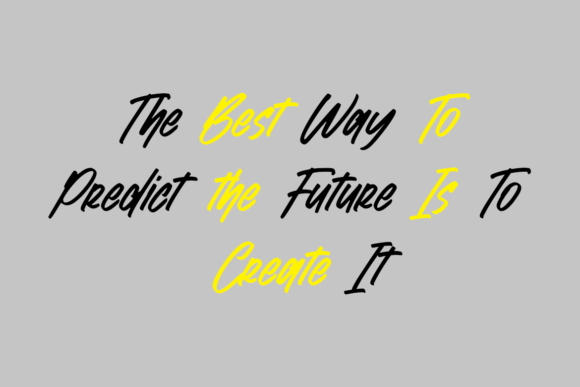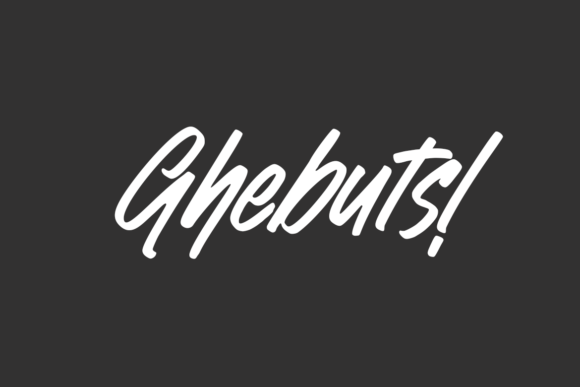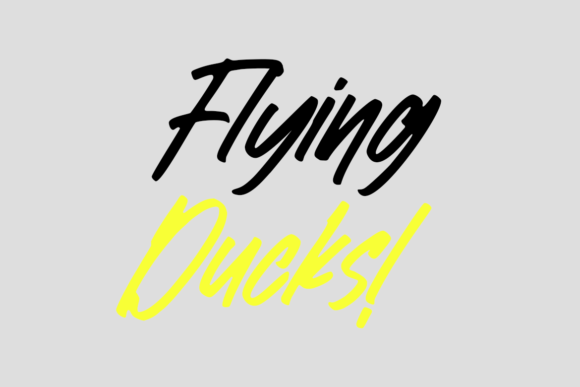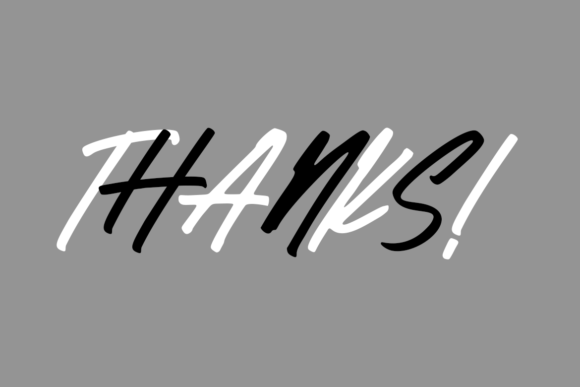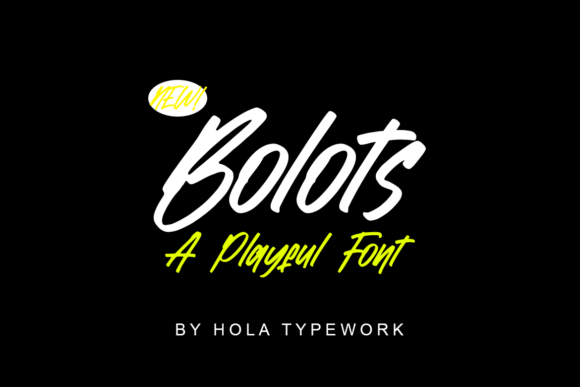
Introducing Bolots Font: The Playful and Brushed Handwritten Font for Creative Projects
Are you a designer or crafter looking for a unique and playful font to add a personal touch to your projects? Look no further than Bolots Font! This beautifully crafted handwritten font is perfect for a wide range of creative endeavors, from t-shirt designs and quotes to mugs, tote bags, cards, banners, social media, and any other crafty project you can imagine.
What Makes Bolots Font Special?
Bolots Font is a playful and brushed handwritten font that exudes a sense of whimsy and charm. Its unique, hand-crafted aesthetic makes it stand out from more traditional fonts, adding a touch of personality to any project. The font’s playful nature makes it ideal for designs that require a friendly, approachable feel, such as:
- T-shirt designs: Add a fun and quirky touch to your apparel designs with Bolots Font.
- Quotes and posters: Create eye-catching quotes and posters that showcase your message in a playful and stylish way.
- Mugs and ceramics: Add a personal touch to your mug and ceramic designs with this charming font.
- Tote bags and fabric: Bolots Font is perfect for designing tote bags, fabric, and other textile products.
- Cards and invitations: Create unique and personalized cards and invitations that showcase your style.
- Banners and signs: Use Bolots Font to create eye-catching banners and signs that grab attention.
- Social media graphics: Add a playful touch to your social media graphics, such as Instagram posts and Facebook covers.
Key Features of Bolots Font
Here are some key features that make Bolots Font a versatile and practical choice for designers and crafters:
- Handwritten aesthetic: Bolots Font has a genuine handwritten look that adds a personal touch to your designs.
- Playful and whimsical: The font’s playful nature makes it perfect for designs that require a friendly and approachable feel.
- Brushed texture: The font’s brushed texture gives it a unique, organic feel that sets it apart from other fonts.
- Easy to read: Despite its playful nature, Bolots Font is easy to read, making it perfect for designs that require a clear message.
Tips for Using Bolots Font
To get the most out of Bolots Font, here are some tips to keep in mind:
- Use it with contrasting colors: Bolots Font looks great when paired with contrasting colors that make it stand out.
- Experiment with different sizes: The font looks great in various sizes, from large headings to smaller text.
- Pair it with other fonts: Bolots Font pairs well with other fonts, such as sans-serif fonts, to create a unique and interesting design.
- Use it for headlines and titles: The font’s playful nature makes it perfect for headlines and titles that require a touch of personality.
In conclusion, Bolots Font is a versatile and playful handwritten font that’s perfect for a wide range of creative projects. Its unique aesthetic, brushed texture, and easy-to-read design make it a great choice for designers and crafters looking to add a personal touch to their work. Whether you’re designing t-shirts, quotes, mugs, or social media graphics, Bolots Font is sure to bring a touch of whimsy and charm to your designs.